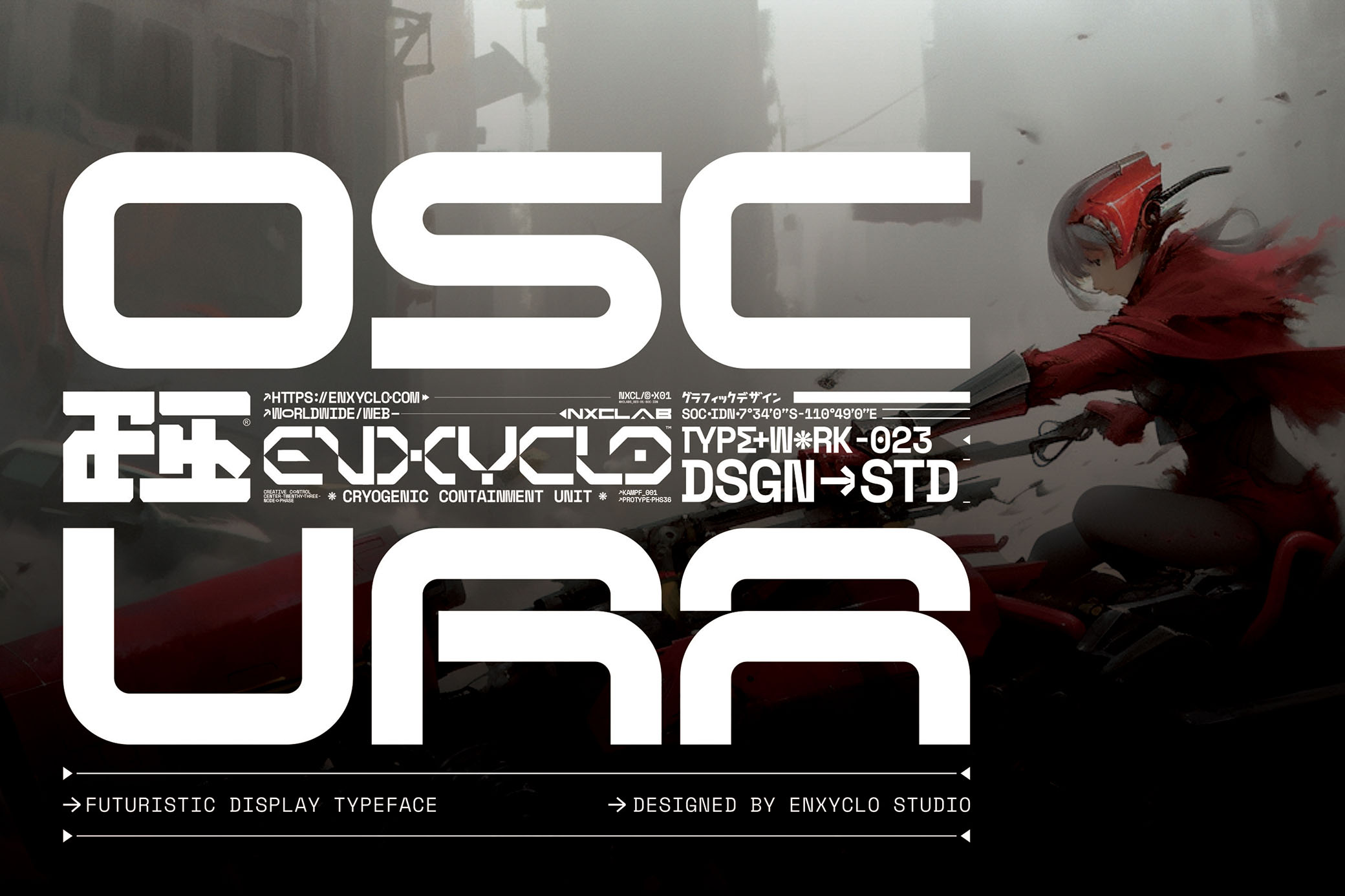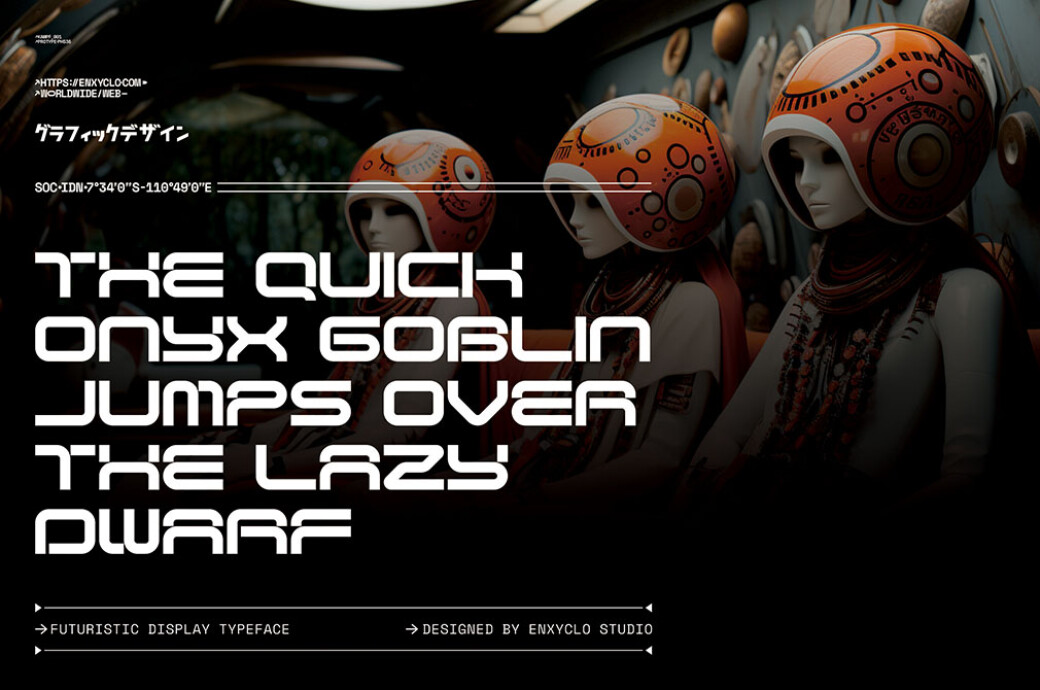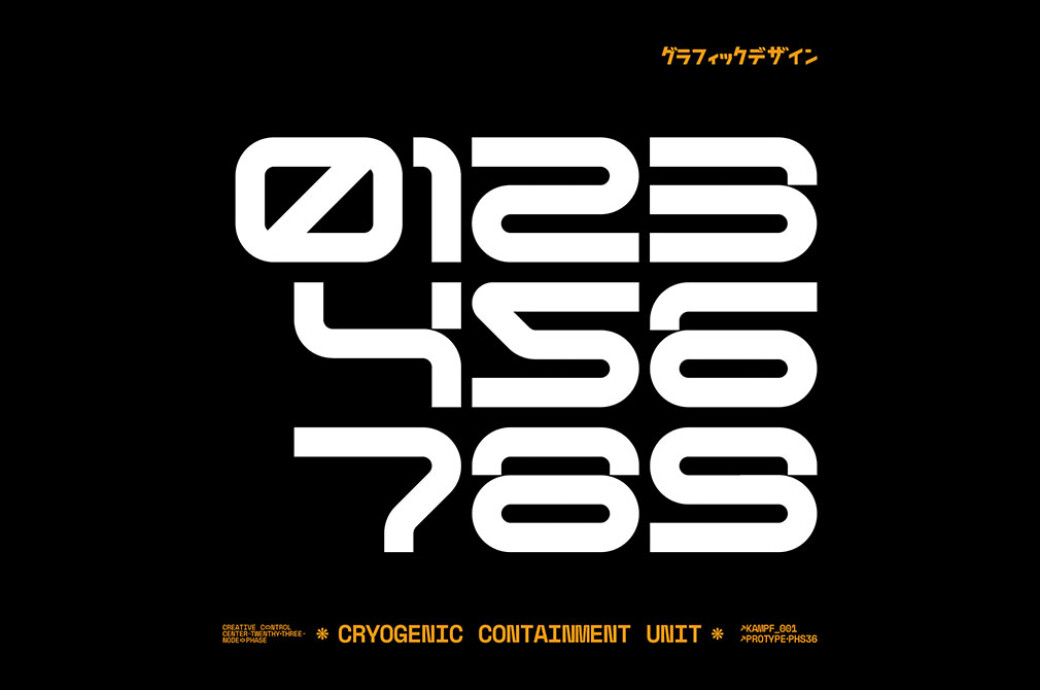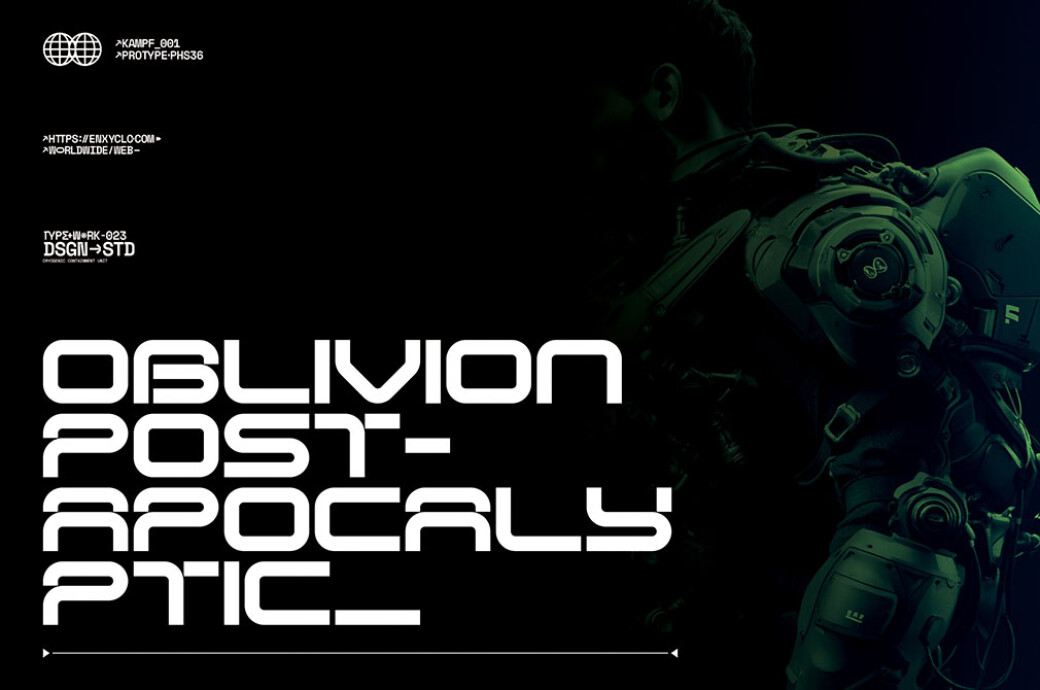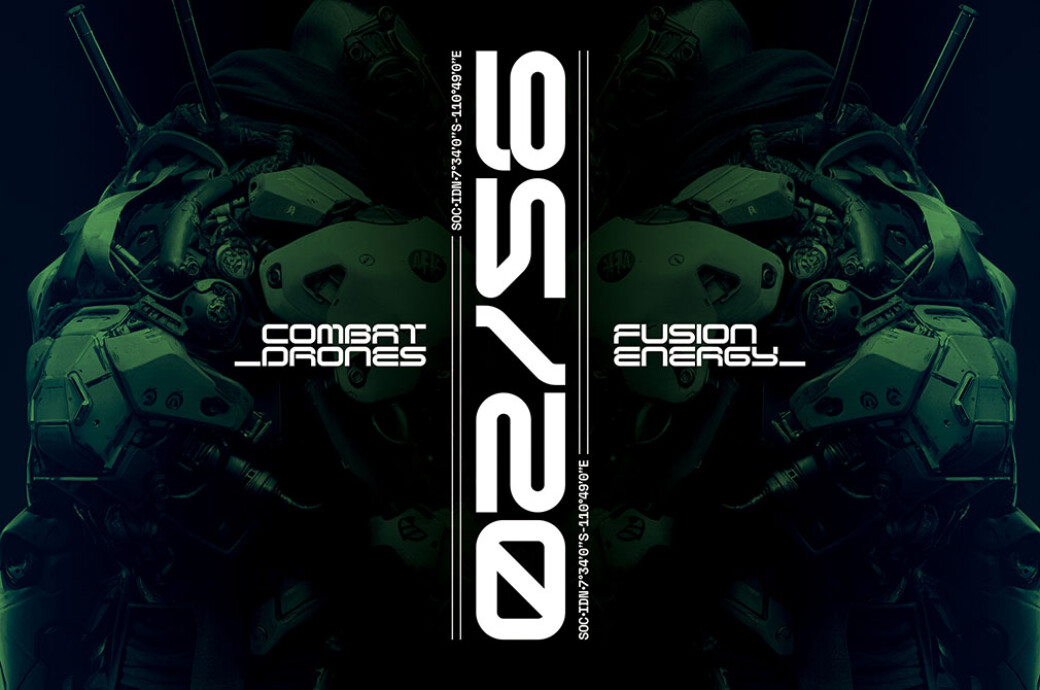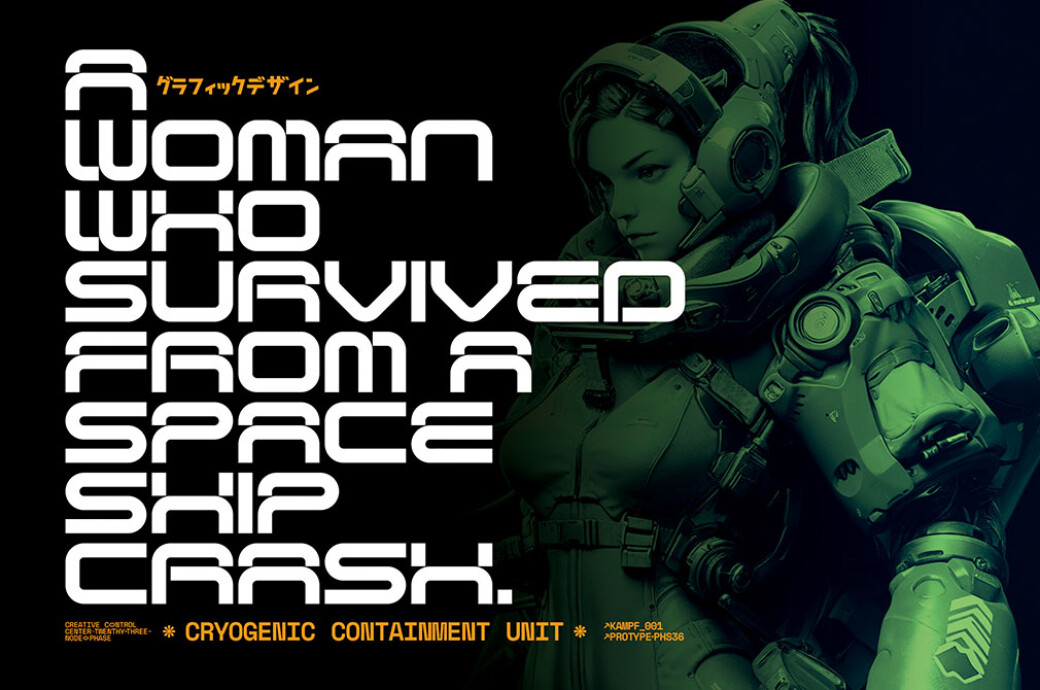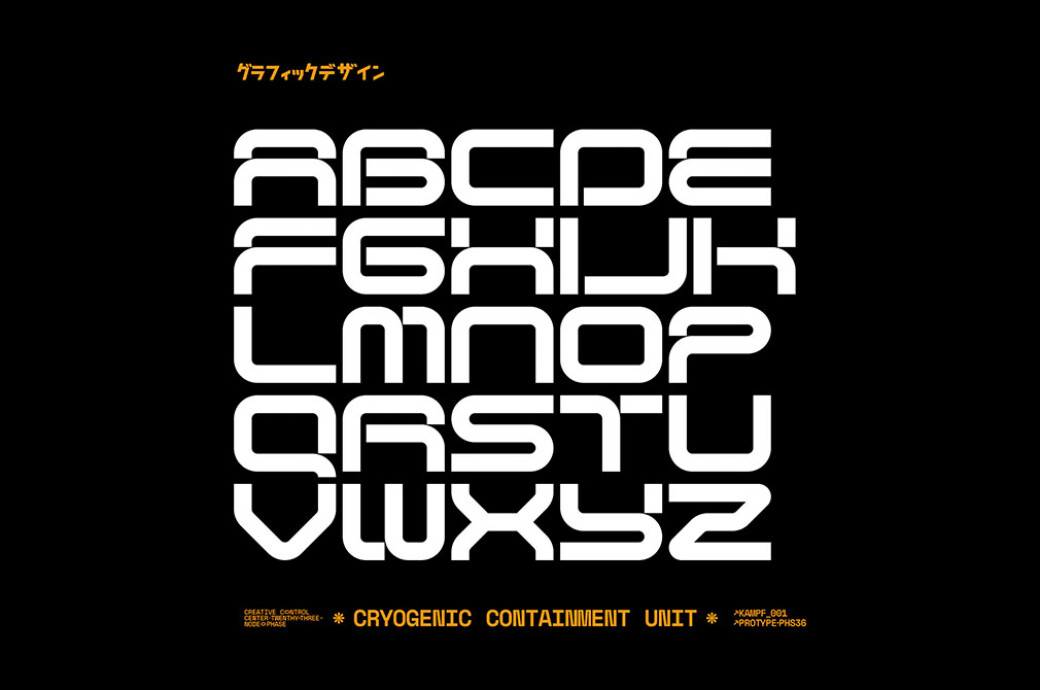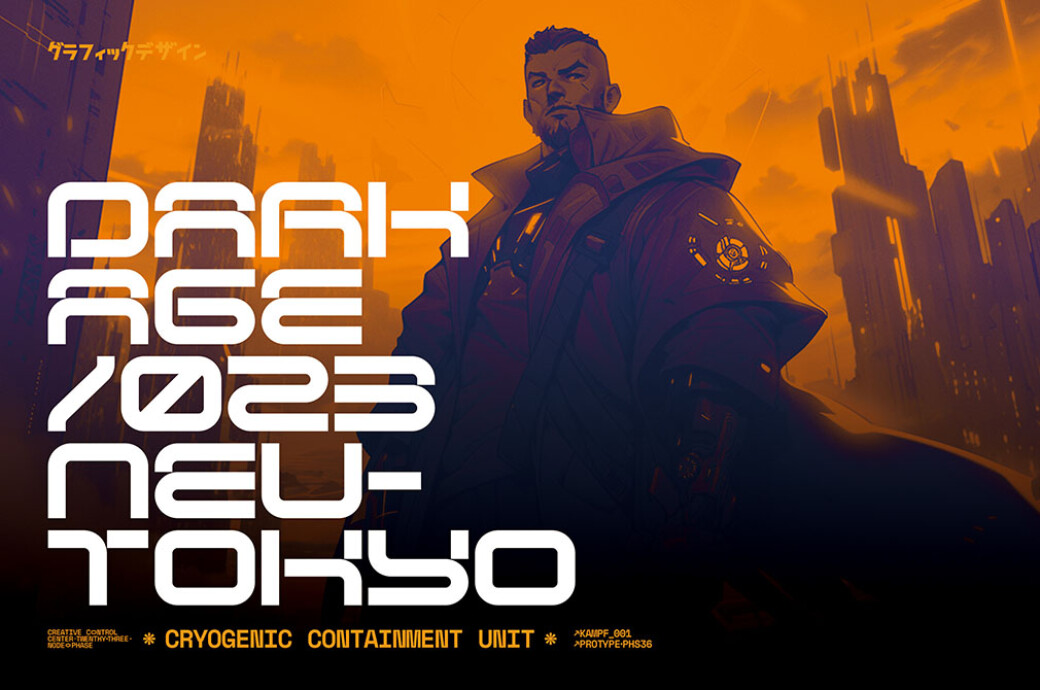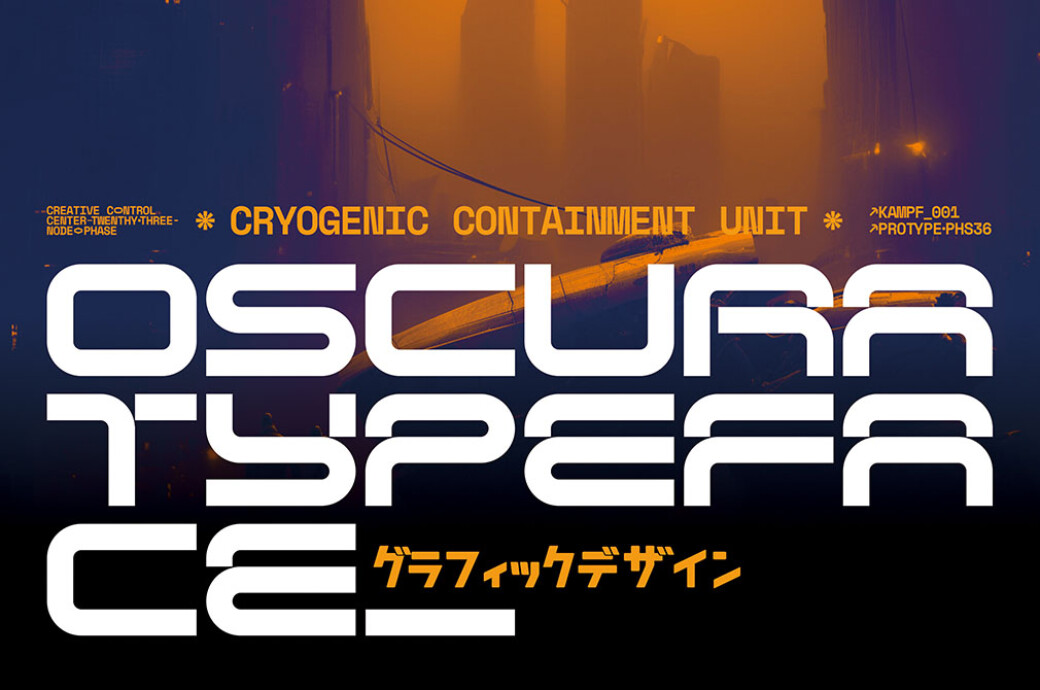
Oscura — Futuristic Techno Cyberpunk Font
Look no further if your goal is a font encapsulating a cyberpunk aesthetic. The Oscura feels as though it has been carefully crafted in a technologically advanced, alternate universe.Oscura embodies the best of futuristic typography: it's a bold, monolinear sans serif that steps outside the norm with its unconventional glyph designs (potentially inspired by a Blade Runner script or Matrix code). But there's more to it than just its out-of-the-ordinary appearance. This font is a comprehensive suite, offering 96 glyphs: uppercase characters, numbers, and punctuation. Imagine Oscura emblazoned across the hull of an intergalactic cruiser, serving as a logo that stands out in the vastness of space, or as the centerpiece of a branding design for a cutting-edge sci-fi film.